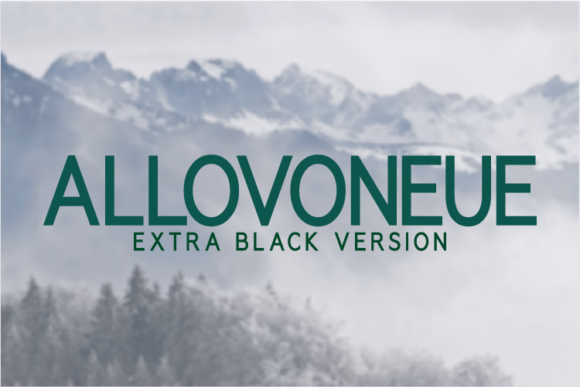
The Ultimate Guide to Allovoneue Extra Black Font: A Designer’s New Best Friend
I’ll never forget the time I was working on a project for a trendy new coffee shop, and I just couldn’t find the right font to capture their modern, edgy vibe. The client was specific about wanting something geometric, yet elegant. That’s when I stumbled upon Allovoneue Extra Black Font, and let me tell you, it was love at first sight! 💕
Allovoneue is a fresh, geometric, sans-serif font family that has quickly become a staple in my design toolkit. With its geometrical letterforms, sharp edges, and very small stroke contrast, it’s reminiscent of neo-grotesk fonts from the 20th century. But what really sets it apart is its versatility – it’s perfect for magazines, posters, branding, and so much more!
- ✨ **Geometric perfection**: Allovoneue’s letterforms are meticulously crafted to provide a clean, geometric look that’s perfect for modern designs.
- ✅ **Highly versatile**: This font can be used for a wide range of projects, from magazines and posters to branding and packaging.
- 💡 **Excellent legibility**: Even at small sizes, Allovoneue remains clear and easy to read, making it perfect for body text.
- 🤔 **Limited italic options**: While Allovoneue does offer an italic version, it’s not as comprehensive as some other font families.
- ⚠️ **May not be suitable for very small text**: While generally legible, Allovoneue may not be the best choice for extremely small text, such as captions or fine print.
The Designer Inspiration Behind Allovoneue
Allovoneue was designed with the goal of creating a modern, geometric sans-serif font that would be both elegant and versatile. The designer drew inspiration from classic neo-grotesk fonts of the 20th century, but with a fresh, contemporary twist.
| Font Name | Allovoneue Extra Black Font |
| Author | Huntype |
Q: What is the best use for Allovoneue Extra Black Font?
A: Allovoneue Extra Black Font is perfect for headlines, titles, and short blocks of text where you want to make a bold statement.
Q: Is Allovoneue suitable for body text?
A: While Allovoneue is generally legible, it may not be the best choice for very long blocks of body text. However, it can work well for shorter paragraphs or articles.
Q: Does Allovoneue support OpenType features?
A: Yes, Allovoneue supports OpenType features, including ligatures, stylistic alternates, and glyphs.